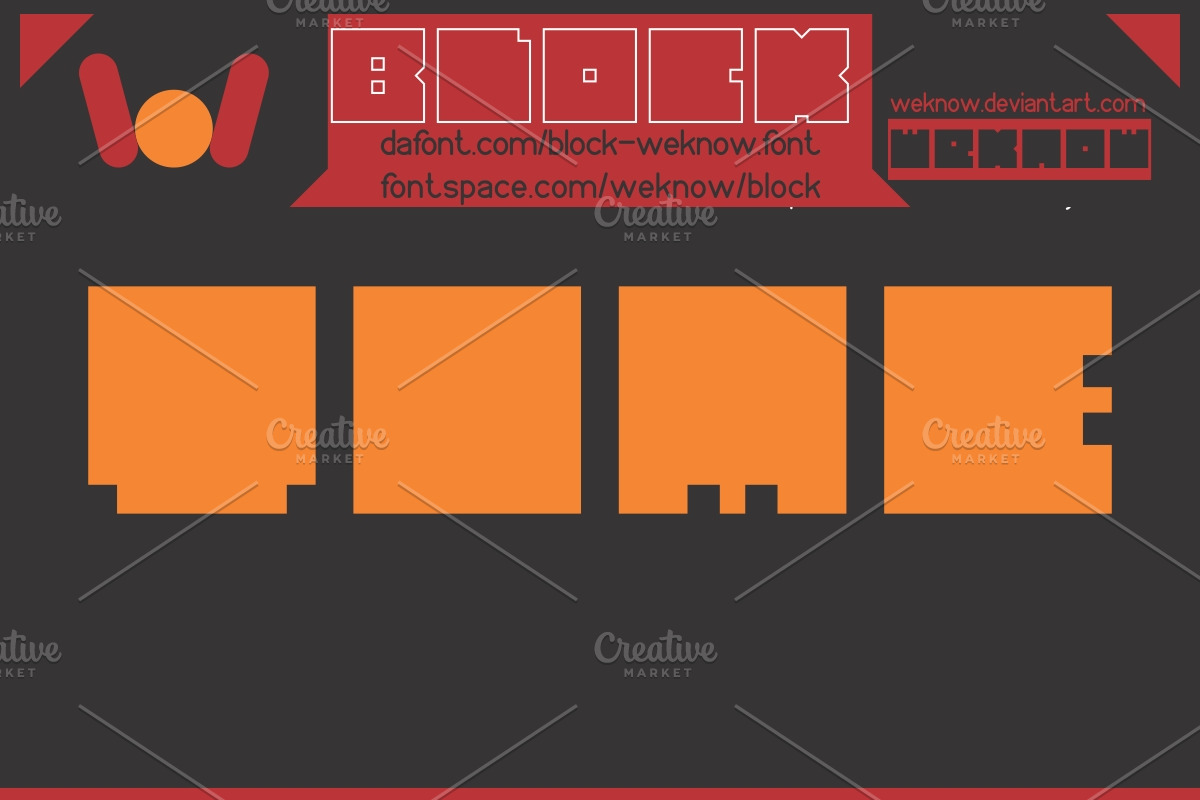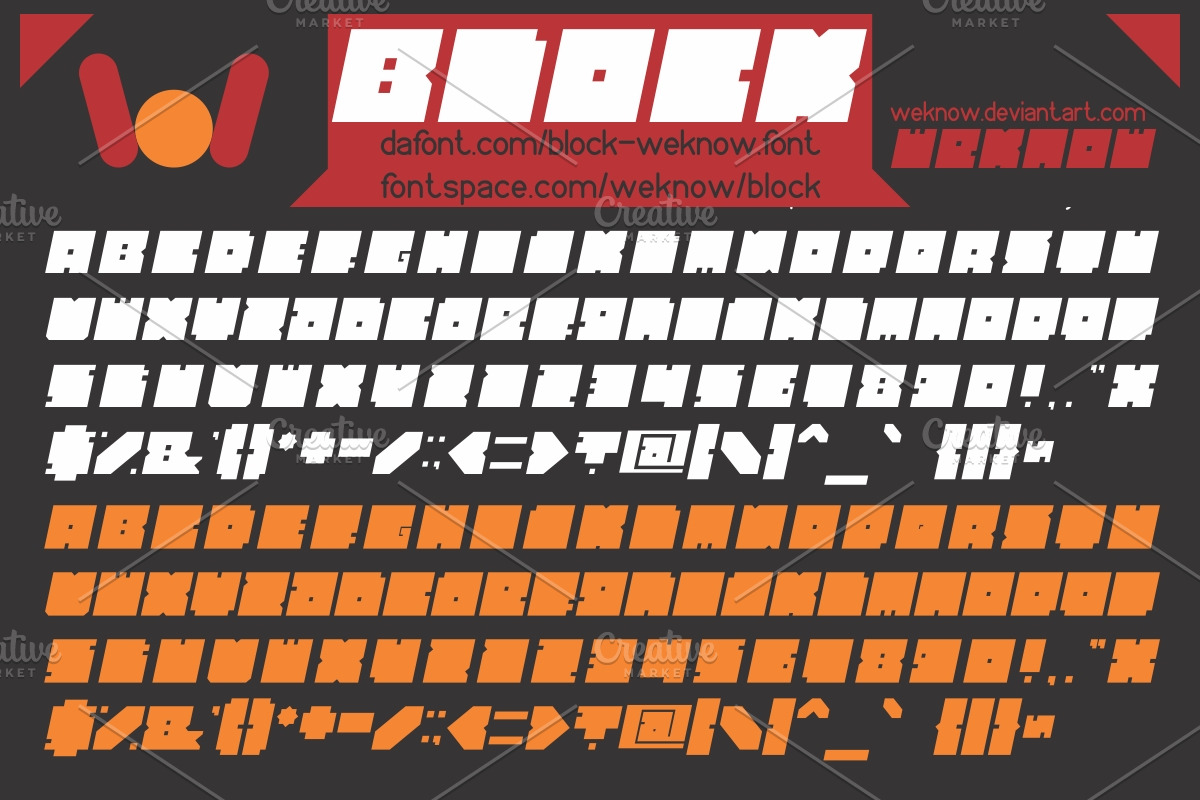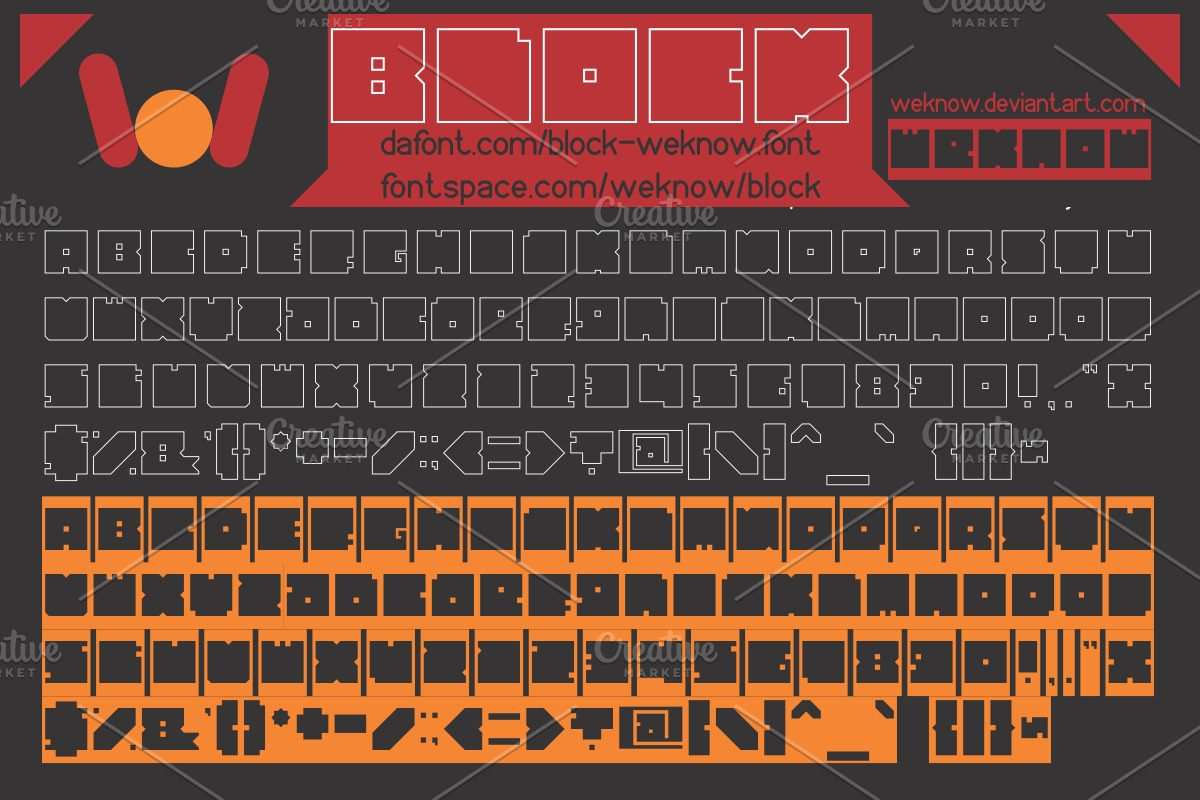
block font
block font by weknow is a font selected for branding, posters, packaging, typography.
Why block font is worth a look
block font by weknow fits naturally into Branding, posters, packaging, typography.